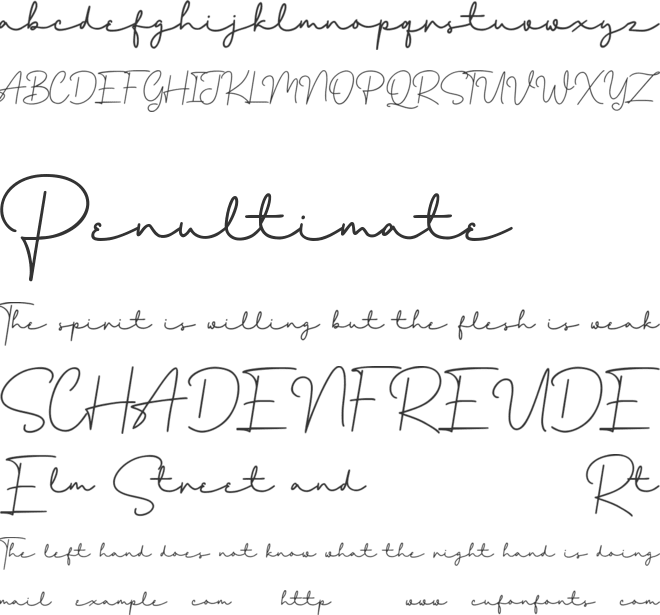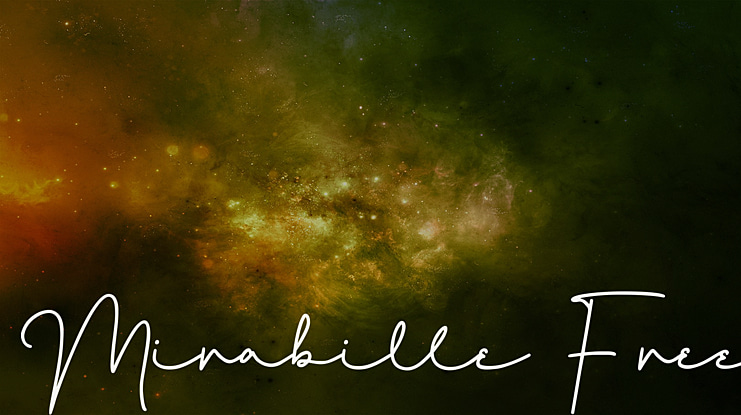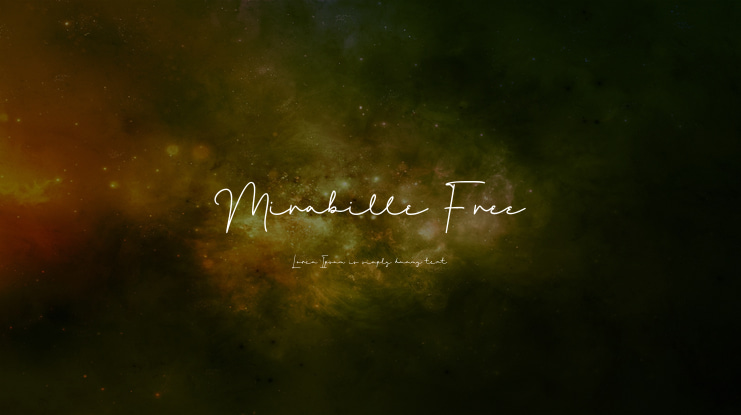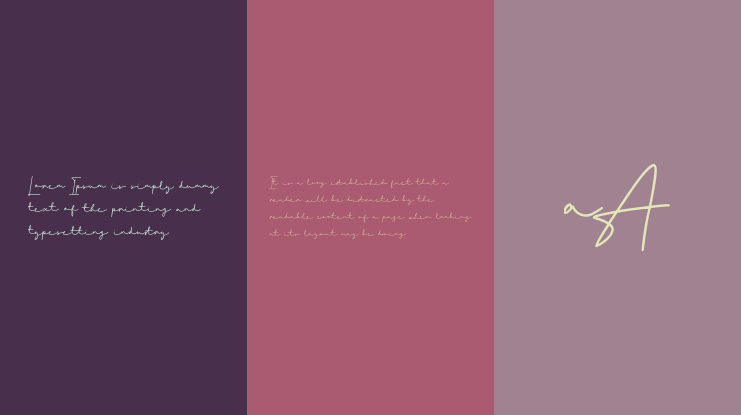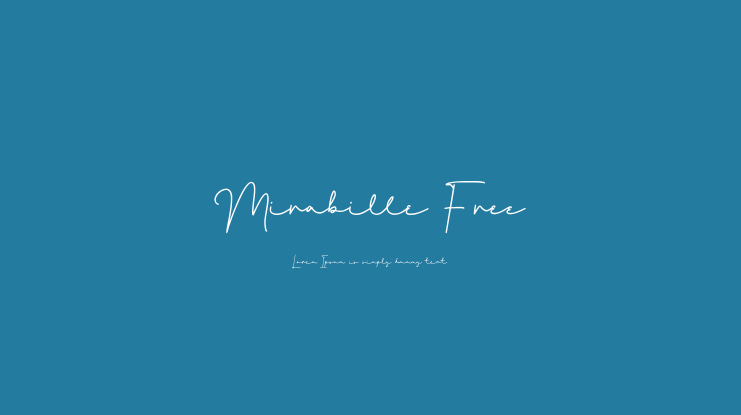
Mirabille Free Font
It’s a beautiful, casual script adds a custom and organic feel to any design you need! This font is perfectly suited to signature, stationery, logo, typography quotes, magazine or book cover, website header, clothing, branding, packaging design and more. Included 3 Font, Mirabille Regular, Mirabille Begin Swash and Mirabille End Swash.